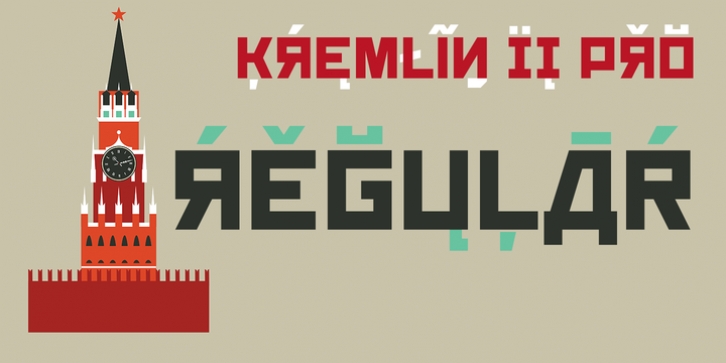
Kremlin II Pro was designed by Vic Fieger, Roger Nelsson and published by CheapProFonts. Kremlin II Pro contains 4 styles and family package options.
Most uppercase letters of these constructivist fonts are made to look like cyrillic letters, so by carefully interspersing those you can set your text and headlines with it and make it look Russian! To a native Russian this of course looks very silly indeed, so to make amends for toying with their letters I have also included a full proper and genuine cyrillic character set. So these are the first CheapProFonts fonts to support languages using the cyrillic script in addition to the usual 65 latin-based languages.
Check out Kremlin Pro for a version with different designs for these glyphs: ¡ ¿ 0 3 6 9 K k M m N n R r V v X x ? !
ALL fonts from CheapProFonts have very extensive language support:
They contain some unusual diacritic letters (some of which are contained in the Latin Extended-B Unicode block) supporting: Cornish, Filipino (Tagalog), Guarani, Luxembourgian, Malagasy, Romanian, Ulithian and Welsh.
They also contain all glyphs in the Latin Extended-A Unicode block (which among others cover the Central European and Baltic areas) supporting: Afrikaans, Belarusian (Lacinka), Bosnian, Catalan, Chichewa, Croatian, Czech, Dutch, Esperanto, Greenlandic, Hungarian, Kashubian, Kurdish (Kurmanji), Latvian, Lithuanian, Maltese, Maori, Polish, Saami (Inari), Saami (North), Serbian (latin), Slovak(ian), Slovene, Sorbian (Lower), Sorbian (Upper), Turkish and Turkmen.
And they of course contain all the usual 'western' glyphs supporting: Albanian, Basque, Breton, Chamorro, Danish, Estonian, Faroese, Finnish, French, Frisian, Galican, German, Icelandic, Indonesian, Irish (Gaelic), Italian, Northern Sotho, Norwegian, Occitan, Portuguese, Rhaeto-Romance, Sami (Lule), Sami (South), Scots (Gaelic), Spanish, Swedish, Tswana, Walloon and Yapese.
· Kremlin II Pro Regular
· Kremlin II Pro Soft
· Kremlin II Pro Rough
· Kremlin II Pro Inline